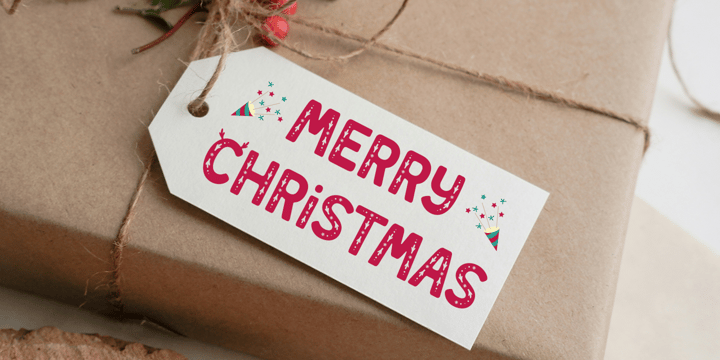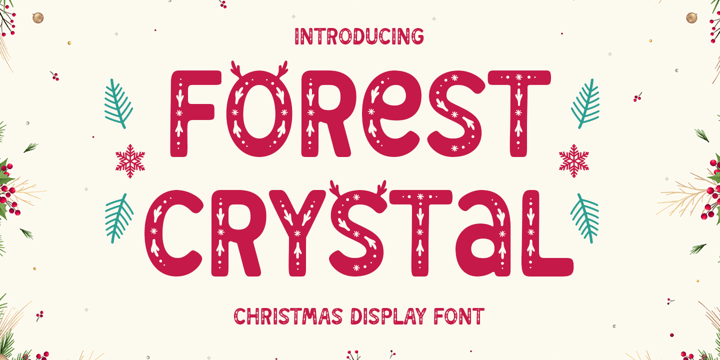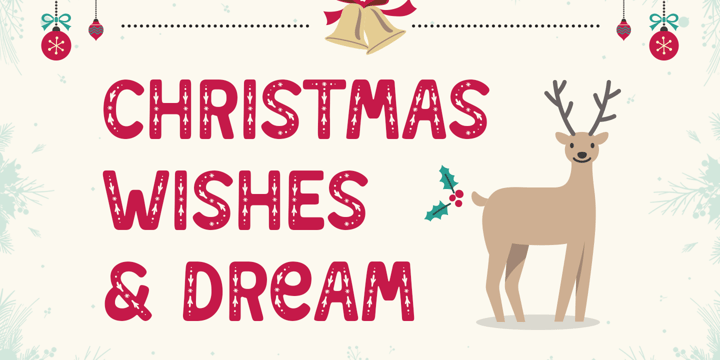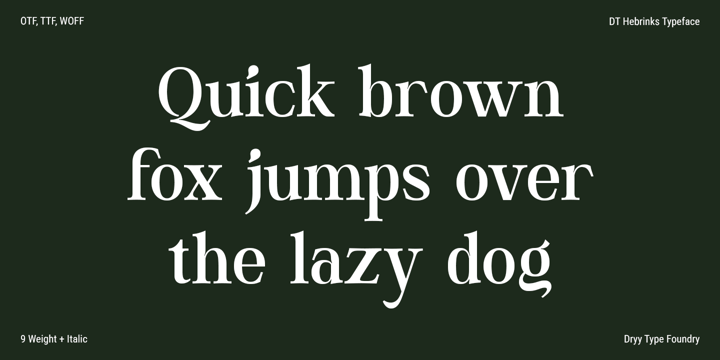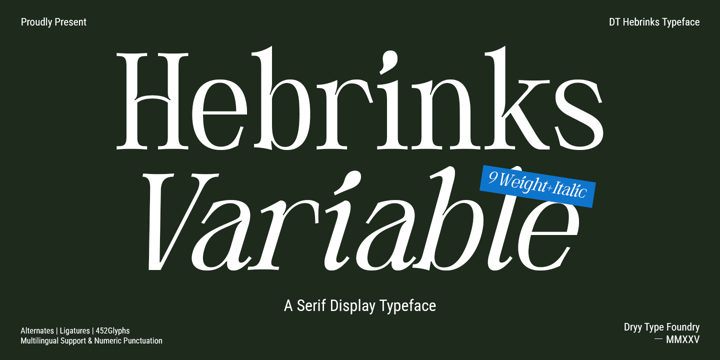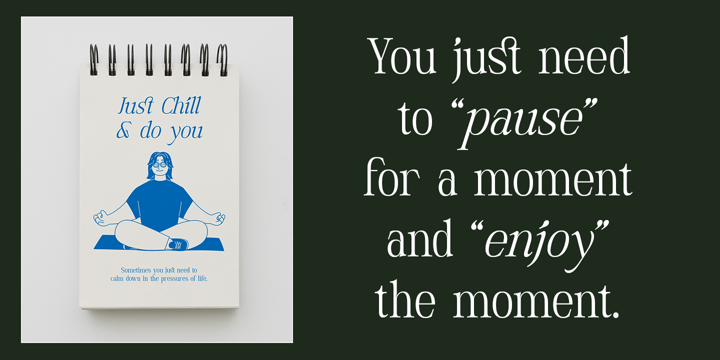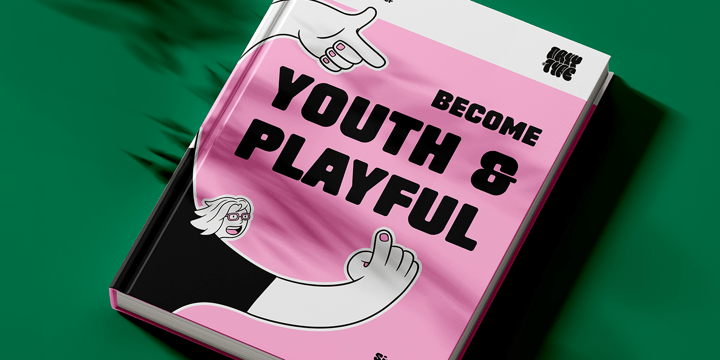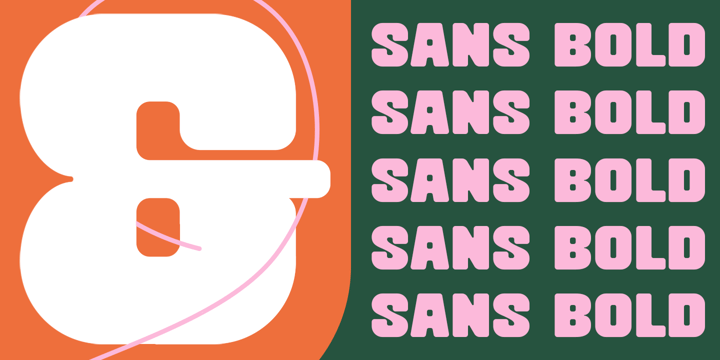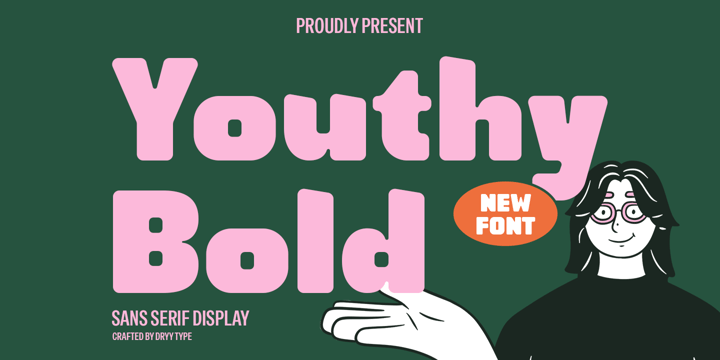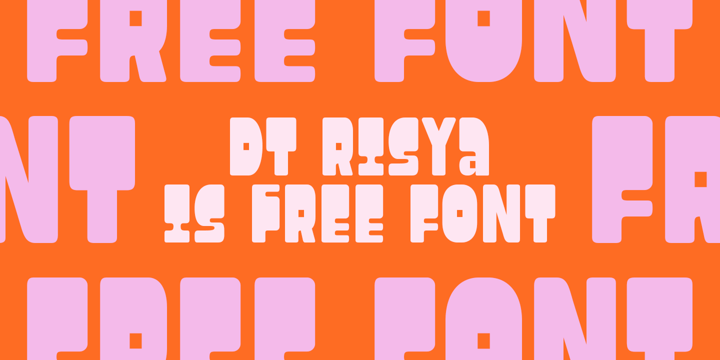
Rian Dryana
Rian Dryana is a highly skilled and talented font designer with a passion for typography. With a background in graphic design and a deep understanding of the art of letterforms, Rian has established himself as an innovative and sought-after professional in the field.
Growing up surrounded by art and design, Rian developed an early fascination for fonts and their ability to convey meaning and evoke emotions. This curiosity led him to pursue a degree in Graphic Design from a renowned art school, where he honed his skills in typography and expanded his creative vision.
After graduating, Rian embarked on a journey to explore the world of type design. He immersed himself in the study of historical fonts, drawing inspiration from various periods of typography, such as Renaissance and Art Nouveau, as well as contemporary design trends. This diverse knowledge base allowed him to merge classic elements with modern sensibilities, resulting in unique and captivating typefaces.
Rian's work is characterized by a meticulous attention to detail and an unwavering commitment to quality. He approaches each font design project with a deep understanding of its purpose and target audience, ensuring that the final product perfectly complements the intended message.
Aside from creating custom typefaces for clients, Rian also takes great pleasure in crafting original fonts for personal projects. These projects serve as an outlet for his boundless creativity, allowing him to experiment with various letterforms, styles, and techniques. His personal font collection showcases his versatility as a designer and his ability to push the boundaries of traditional type design.
As a font designer, Rian believes in the power of typography to elevate and enhance visual communication. He considers himself not only a creator but also a facilitator of meaningful and impactful design. With a dedication to continually push his craft forward and a lifelong pursuit of excellence, Rian is poised to leave an indelible mark on the world of typography